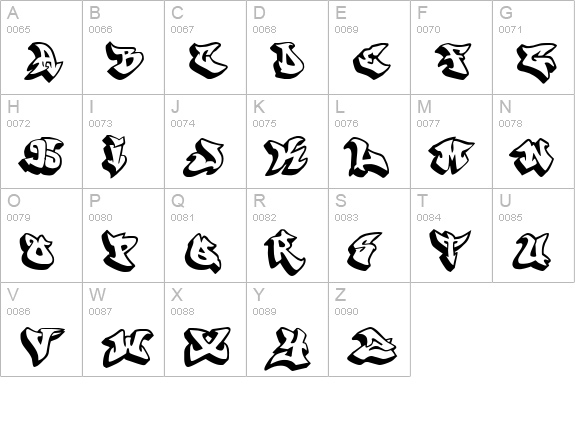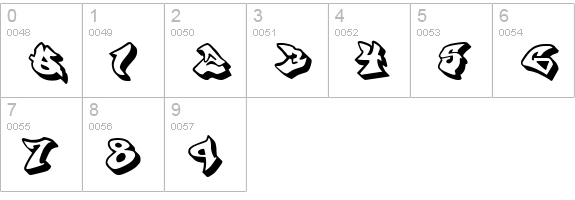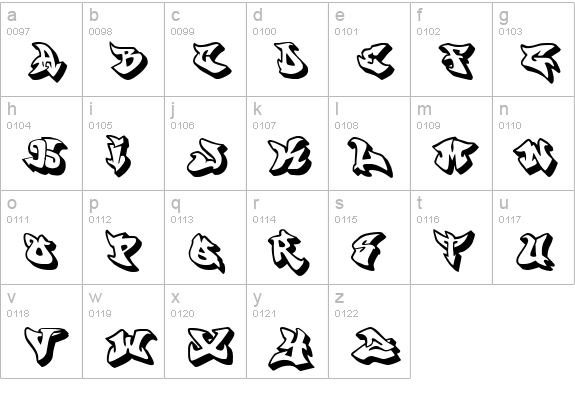
graffonti .3d.drop. Font Details
Graffonti .3d.drop. font is a bold and dynamic typeface designed to make a statement. With its unique 3D drop effect, this font adds depth and texture to any design project. The sharp angles and intricate details of Graffonti .3d.drop. font make it perfect for creating eye-catching headlines, posters, and logos. The best part? Graffonti .3d.drop. font is available for free download at FontsMarket.com. Whether you're a designer looking to add a touch of urban flair to your work or a hobbyist looking to spice up your personal projects, this font is sure to impress. Don't miss out on the opportunity to enhance your designs with the edgy and stylish Graffonti .3d.drop. font - download it for free today!